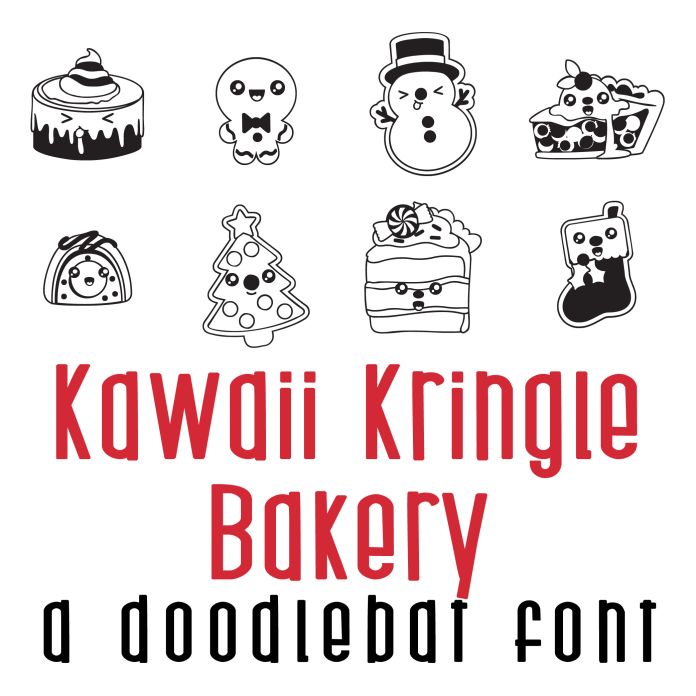
This adorable doodlebat font features 36 Christmas themed Kawaii-style bakery items perfect for cards, crafts, gifts, planner stickers, classrooms, scrap book pages and more! Glyphs are A-Z and 0-9